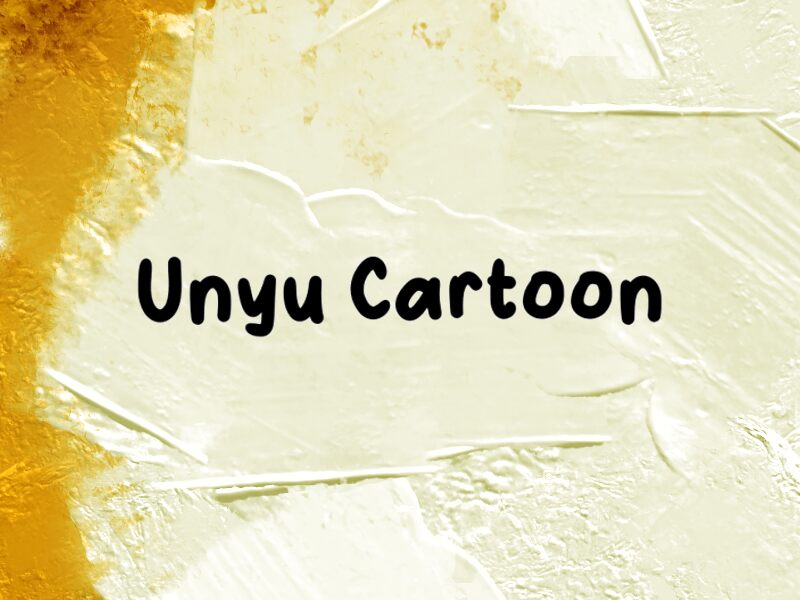
Unyu Cartoon
Unyu Cartoon font by wep is a free cartoon display typeface that feels like it’s been doodled with a chunky marker. The letters are rounded, slightly bouncy, and tightly knit, giving every word a playful, hand-drawn warmth. There’s just enough wobble to feel friendly and alive, without slipping into chaos, so headlines stay bold, clear, and irresistibly cute.
Using Unyu Cartoon, you can give kids’ logos, YouTube thumbnails, comic titles, sticker sets, party invitations, and playful packaging an instant dose of personality. This free font shines when it’s big and loud, where its inky curves and soft edges can really show. For longer text, pair Unyu Cartoon with a simple geometric sans to keep everything readable while the title does the smiling.